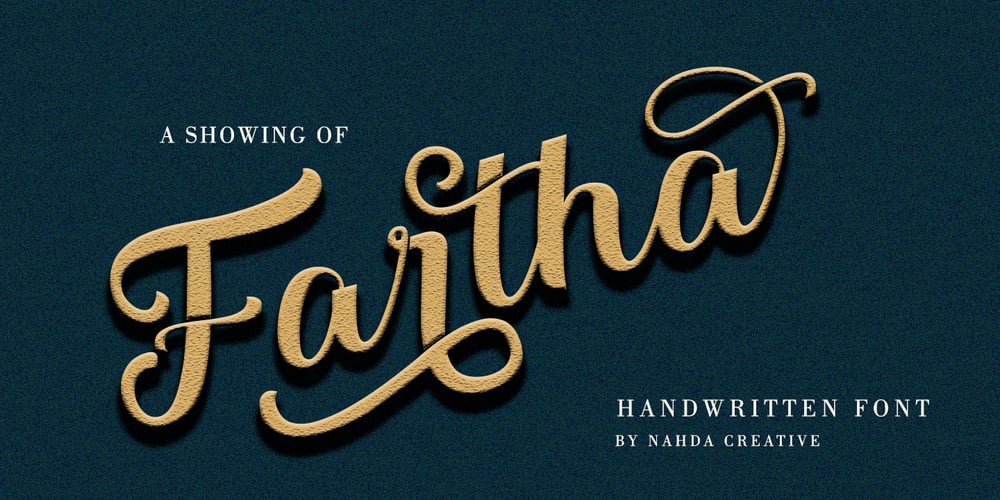
Fartha
Fartha Font Family was designed by Nahda Rajman and published by Nahda Creative. Fartha contains 1 styles and family package options. Fartha is a lovely and delicate script font that exudes elegance and class. This font was particularly crafted for those who need a beautiful and refreshing look to their designs.